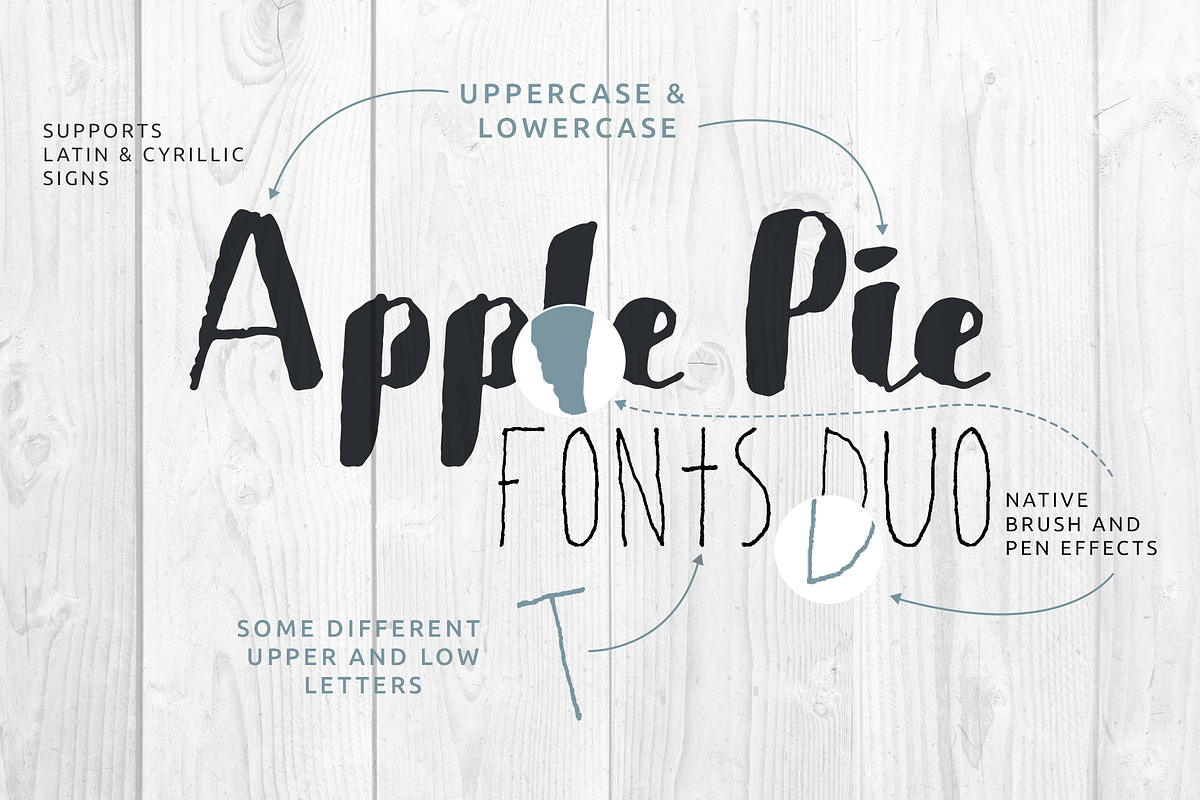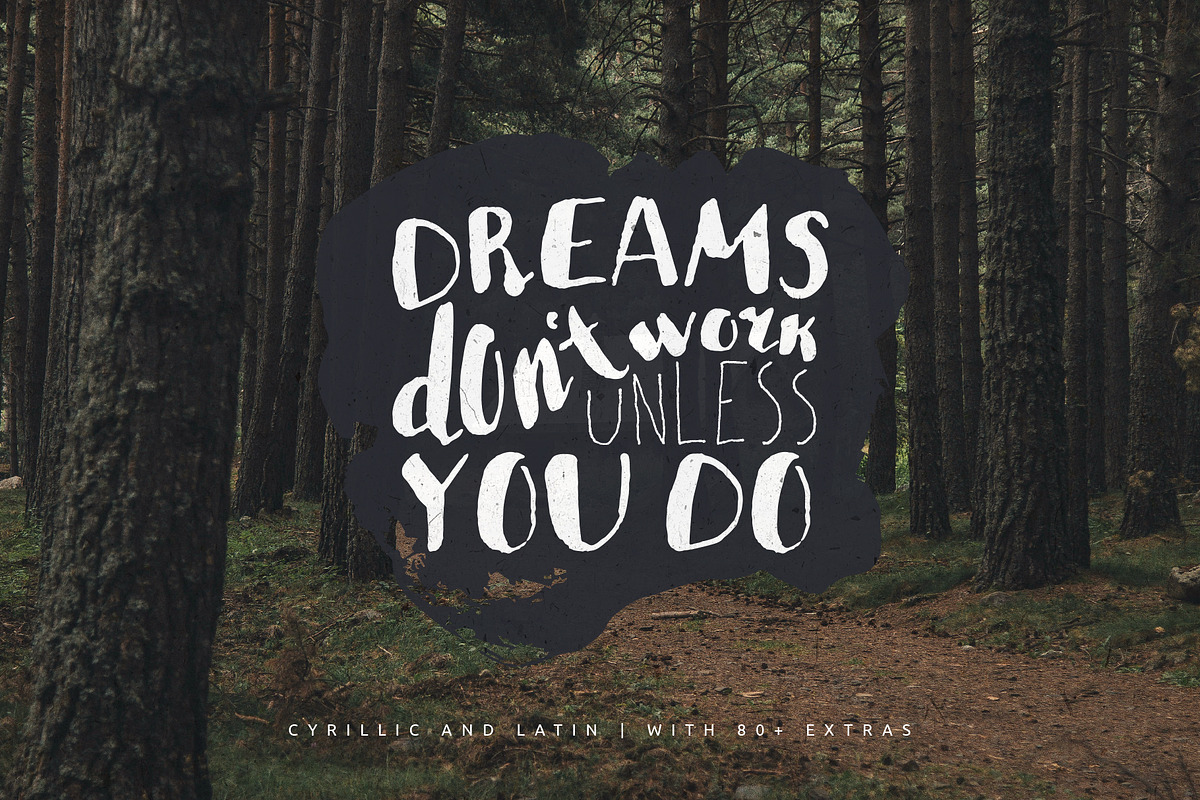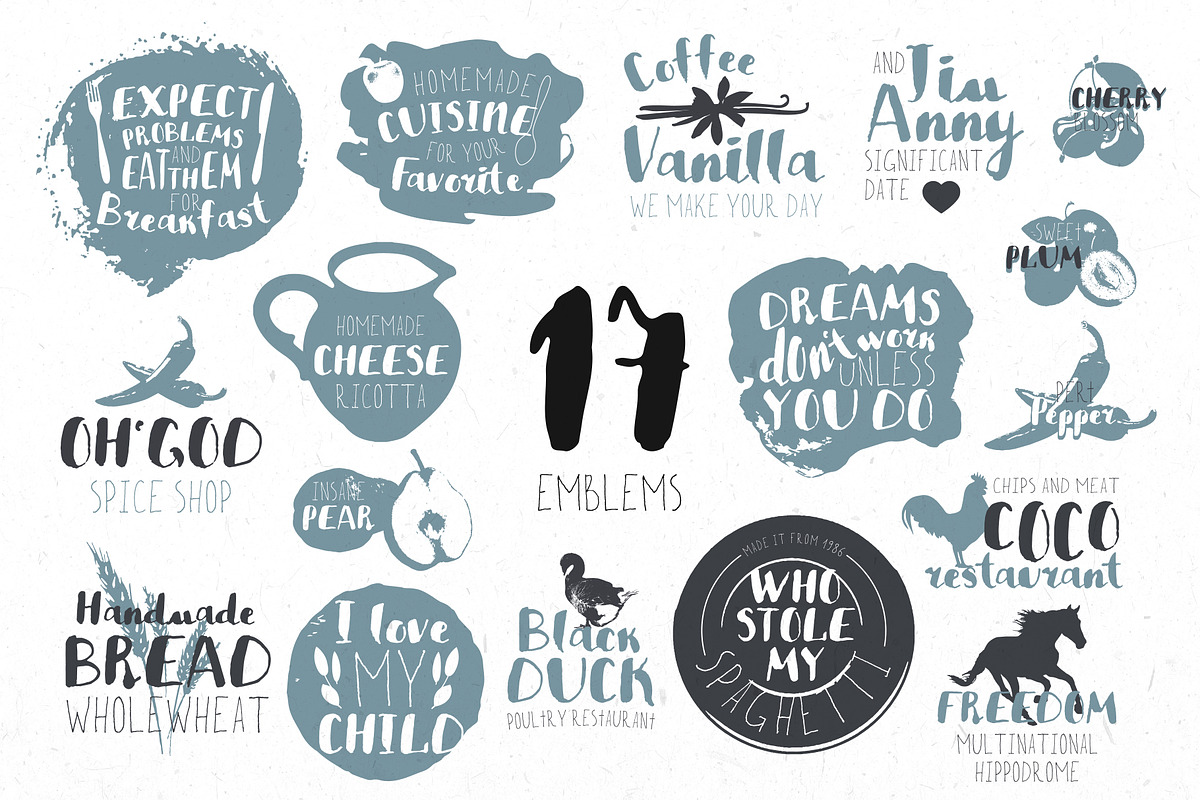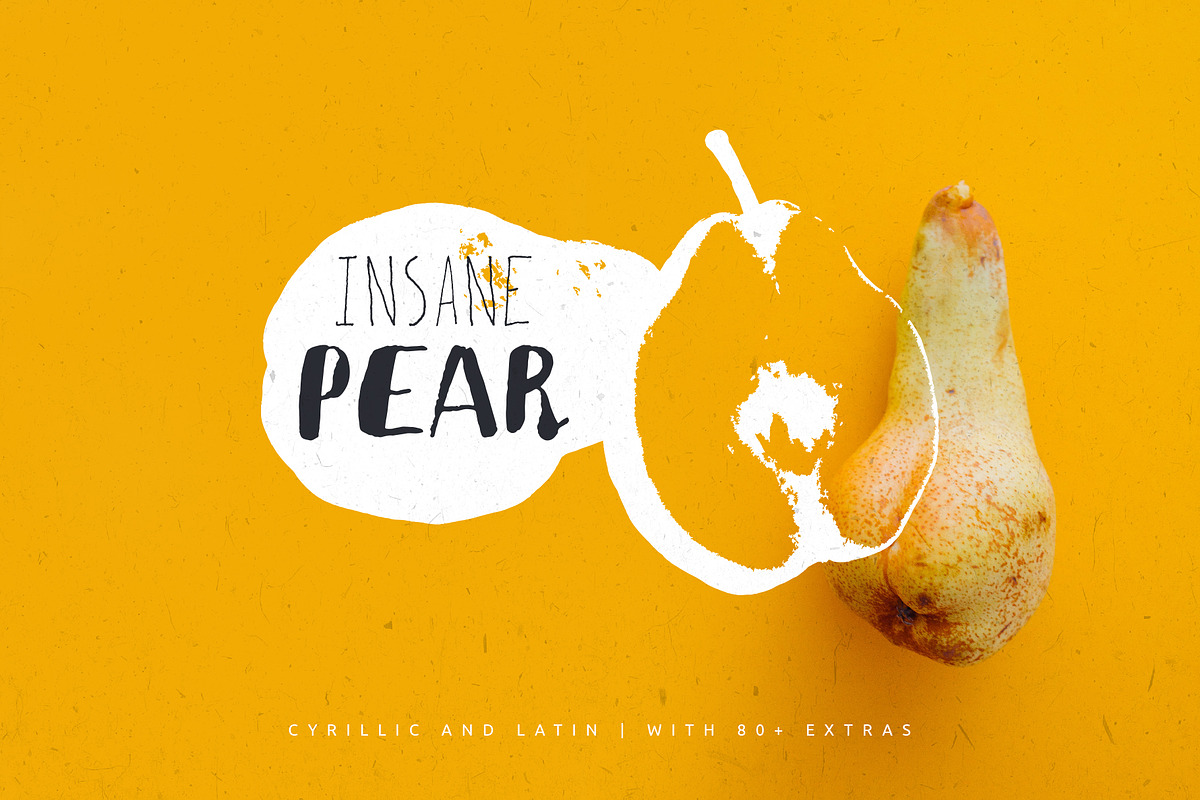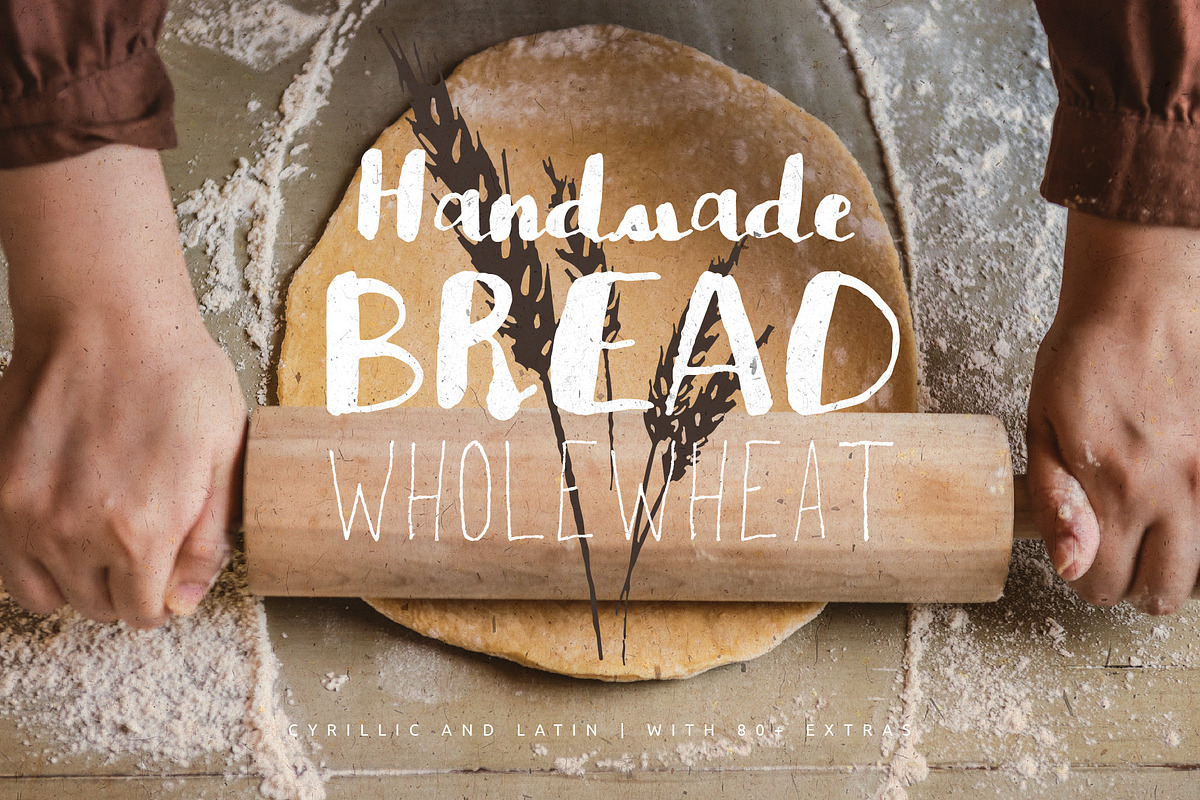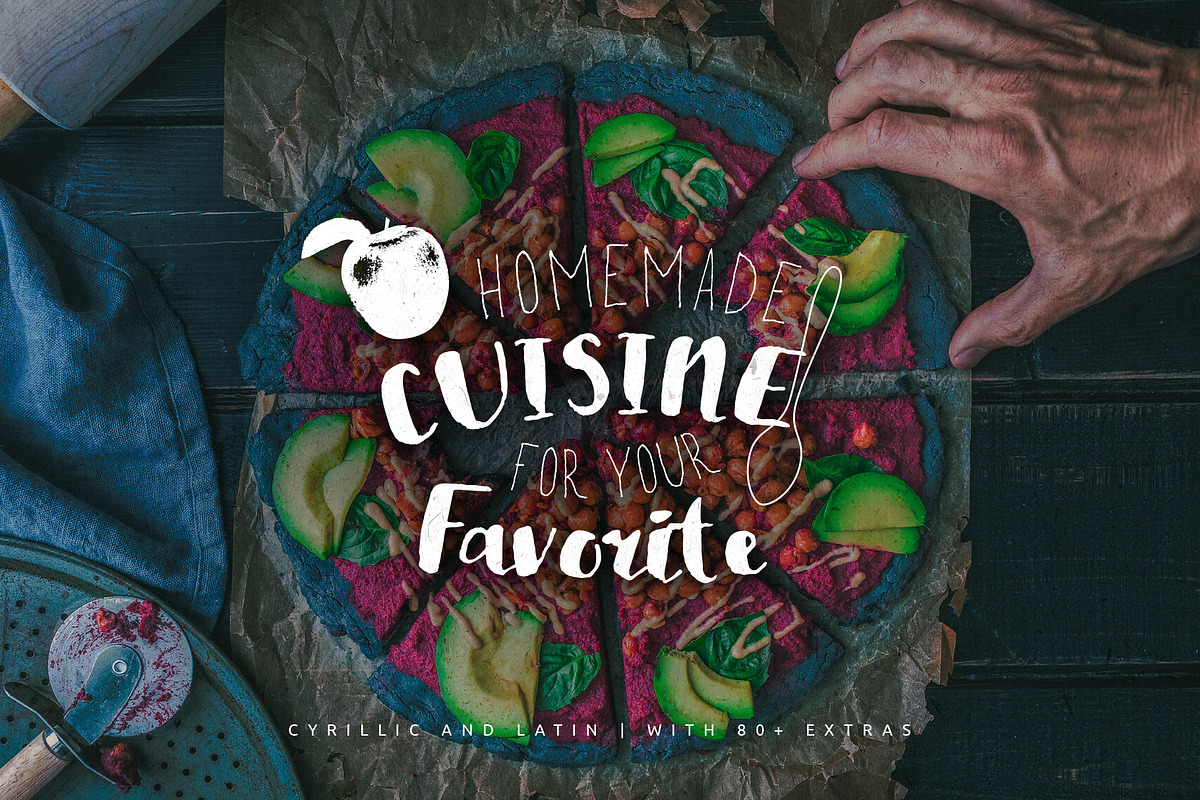
Handwritten Script Font Duo — ApplePie
With the onset of autumn I really want something warm, native and unusual, what about you?
The new font duo Apple Pie reminds me warm summer evenings in a country. When it was getting cool outside, you were climbing into a house where a warm fireplace was burning. You threw a warm blanket on your shoulders, sat comfortably in a chair and opened your favorite book. Let it be a book about Tom Sawyer. Somewhere in the house, relatives was cooking dinner and it is smelling fresh baked food. This is my favorite Apple Pie by grandmother! Meanwhile, you quietly was sipping hot sweet cocoa with marshmallows. How cool is it?
Here are some nuances:
2 different Brush and Pen fonts with basic glyphs & kernings. They suppot Latin and Cyrillic. Both of fonts are in OTF file format.